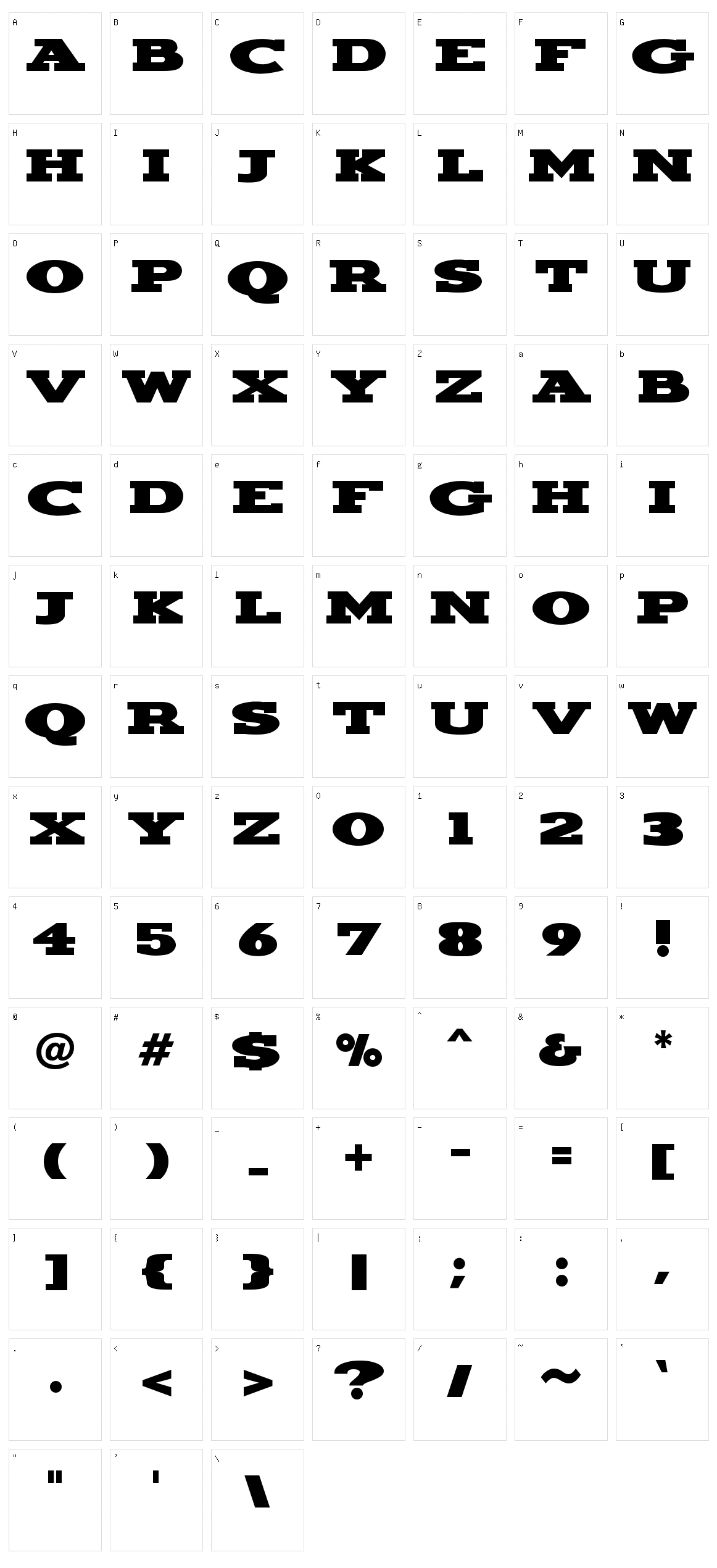
Hundo
Designed by: Sharkshock
Category: Serif
Hey everyone. Like life in the fast lane? Got the need for speed? This font might be for you. It's an old rework of one of my earlier projects with cleaner glyphs, spacing, and kerning.